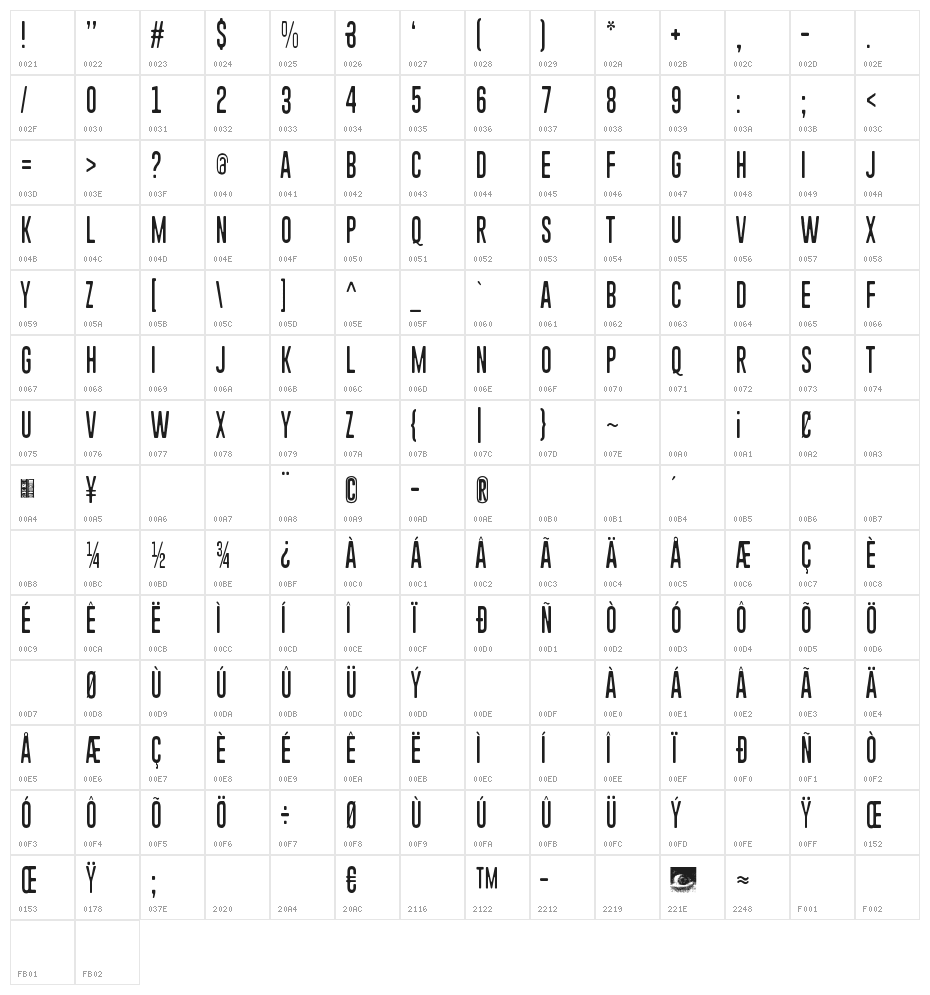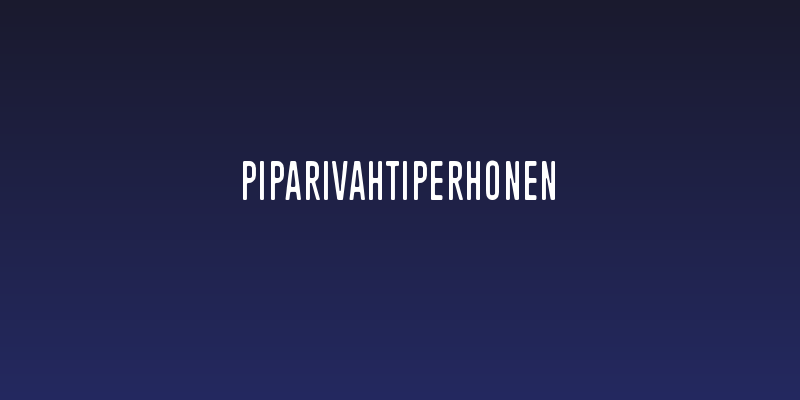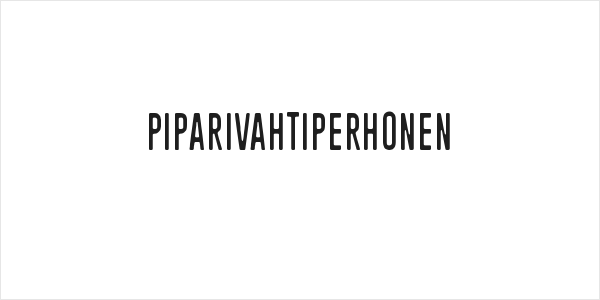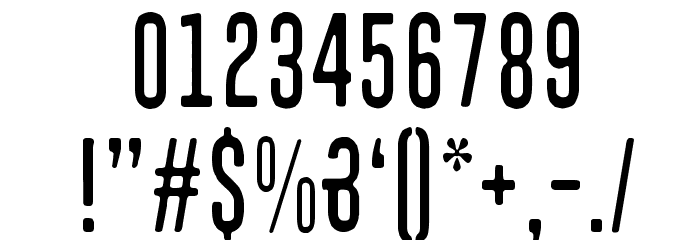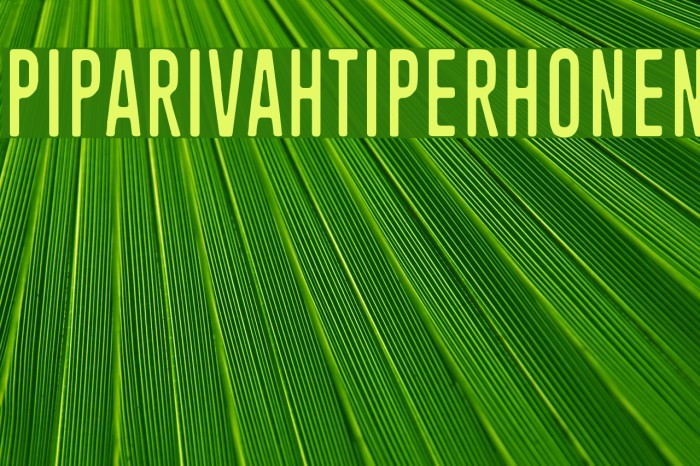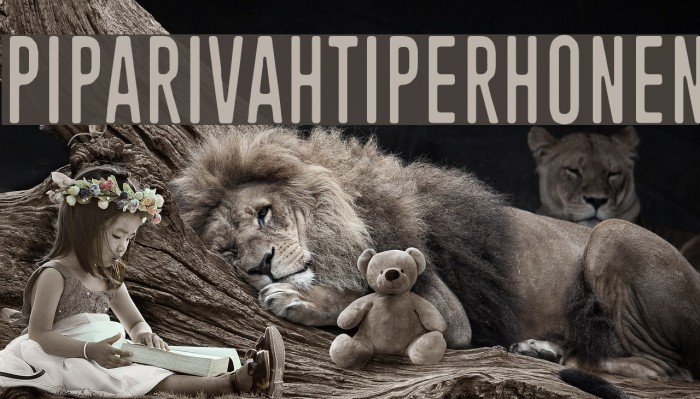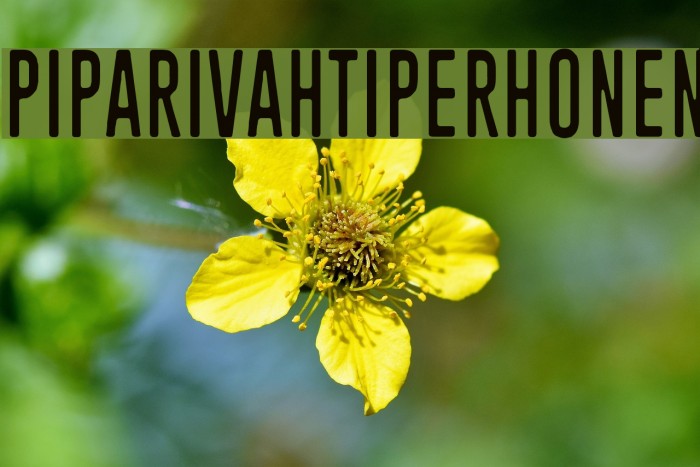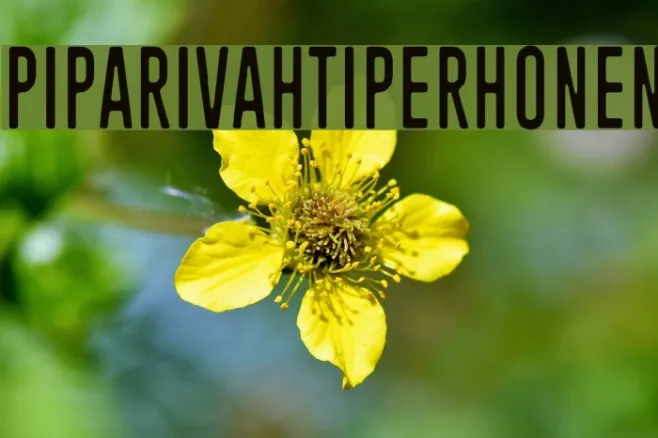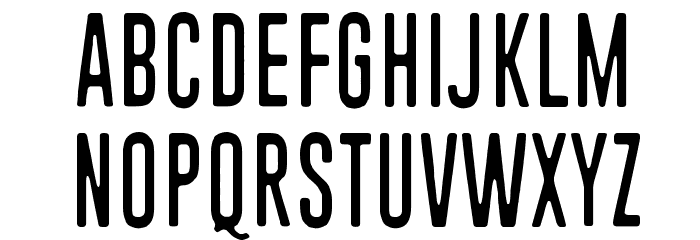
Piparivahtiperhonen Font
✎ Sans Serif
Piparivahtiperhonen Description
This font features a bold and modern sans-serif style with a clean and uniform appearance. The characters are tall and narrow, giving them an elongated look that is both sleek and contemporary. The uppercase letters are consistent in height, while the lowercase letters maintain a similar width, ensuring readability and balance. The numerals are well-proportioned, matching the overall aesthetic of the alphabet. Special characters are included, maintaining the same design ethos, making this font versatile for various applications. The uniform stroke width across all characters provides a cohesive and polished look, suitable for both digital and print media.
| Categories | Sans Serif |
| Width | Condensed |
| Use Case | Headlines, Branding, Advertising |
| Proposed Projects | Ideal for branding, advertising, headlines, and digital media where a modern and clean look is desired. |